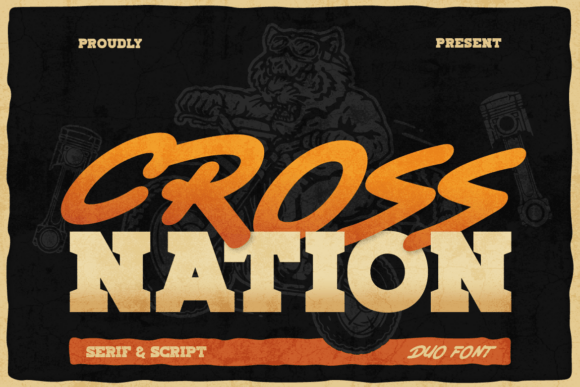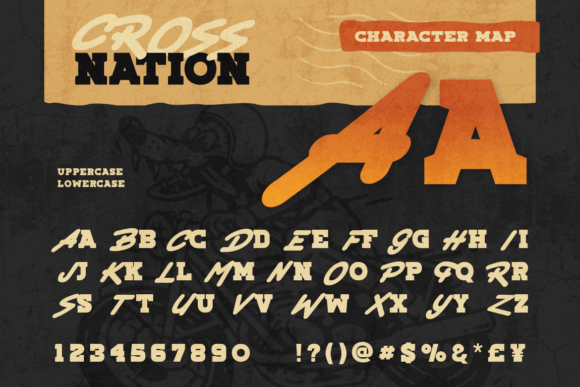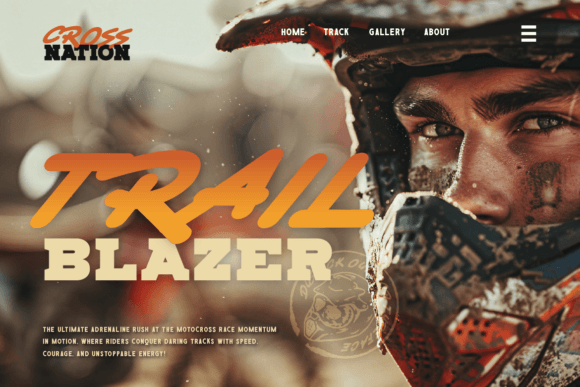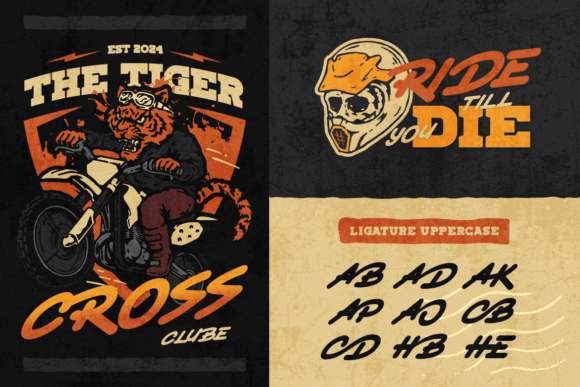
Crossnation Font: Bold Motorcross Serif & Script Font Duo for Logos!
About the Crossnation Font
Crafted with precision, the Crossnation Font is ready to bring your ideas to life. Proudly introducing, Crossnation, the ultimate duo font combining serif and script with motorcross theme. With added ligatures, this font brings an extra touch of adventures and wild energy. It also features multilingual support, making it perfect for global use. Whether you’re creating logos, posters, or editorial designs that need a sense of adventure, boldness, and adrenaline, this font is your go-to choice to grab attention in easy way. But that’s not all—Cross Nation comes with a super cool bonus vector pack to add even more value to your designs!
Crossnation Font Usage Examples
Crossnation Font Example